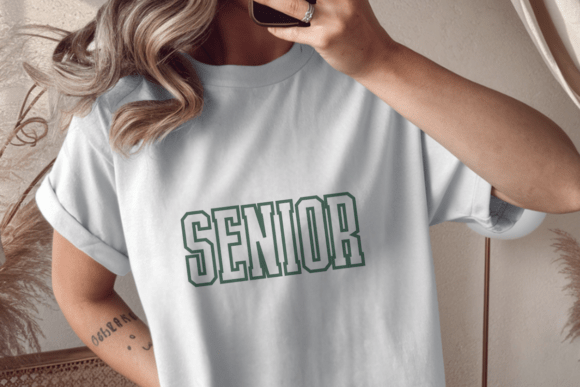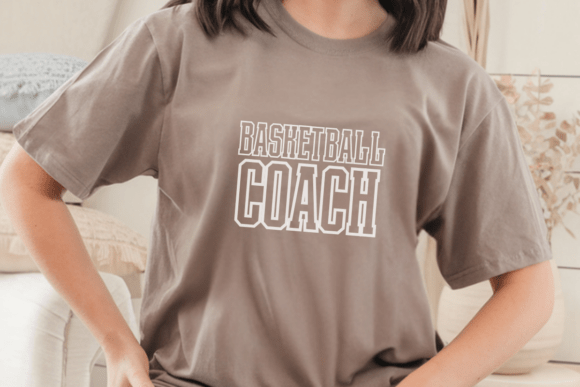
The Winning Font: How Basket Sport Outline Can Elevate Your Designs
I’ll never forget the time I was working on a college sports team logo project, and my client asked for a font that screamed “team spirit” and “energy.” I scoured the internet, trying out font after font, but nothing seemed quite right. That was until I stumbled upon Basket Sport Outline Font. This bold, athletic typeface has been a game-changer for my designs, and I’m excited to share its awesomeness with you! 🏈
So, what makes Basket Sport Outline Font so special? Let’s dive into the good stuff! ✨
- ✅ Strong, athletic aesthetic: This font is perfect for creating high-impact designs that demand attention.
- ✅ Excellent readability: Even at smaller sizes, Basket Sport remains clear and legible, making it ideal for a wide range of applications.
- ✅ Clean, sharp edges: These ensure smooth cutting for vinyl projects and a crisp, professional finish for digital printing.
- ✅ OpenType features: Basket Sport comes with a range of OpenType features, including glyphs and stylistic alternates, giving you plenty of creative flexibility.
Of course, no font is perfect, and Basket Sport has a few minor quirks to consider: 🤔
- ⚠️ Limited use in body text: Due to its bold nature, Basket Sport works best as a display font or for short headings.
- ⚠️ May not be suitable for very small text: If you’re working with tiny text sizes, you may find that the font becomes too bold or overpowering.
The Design Story Behind Basket Sport
Basket Sport Outline Font was inspired by the classic collegiate sports teams of the United States. Its designer aimed to create a typeface that embodied the spirit of competition, teamwork, and school pride. The result is a font that’s both bold and elegant, perfect for creating high-impact designs that demand attention.